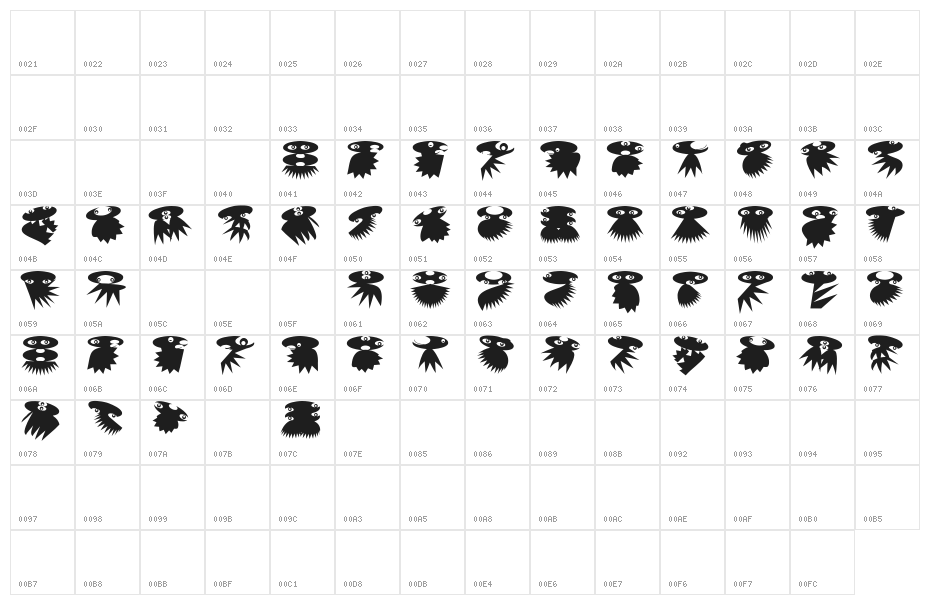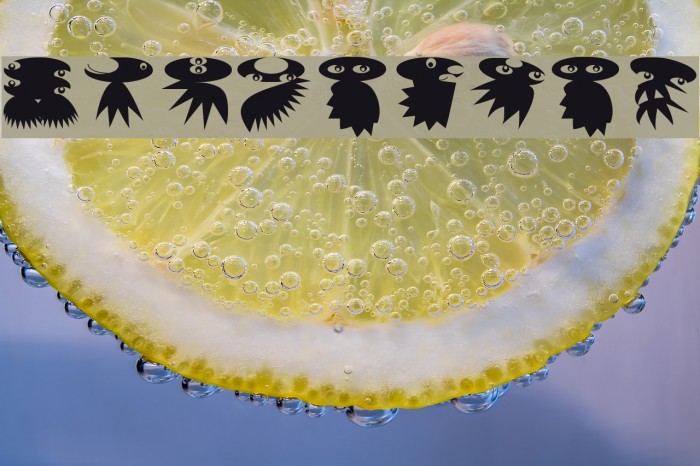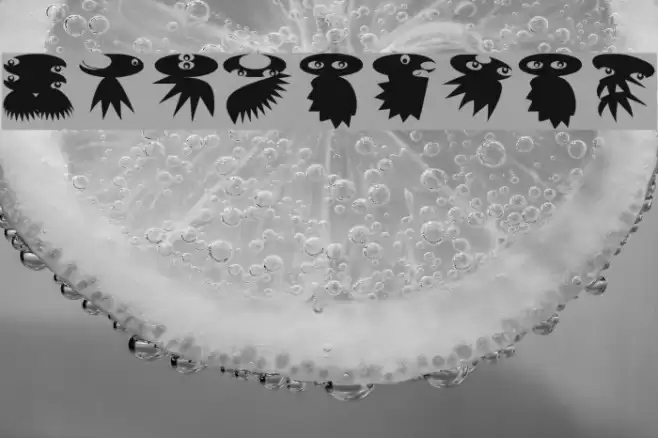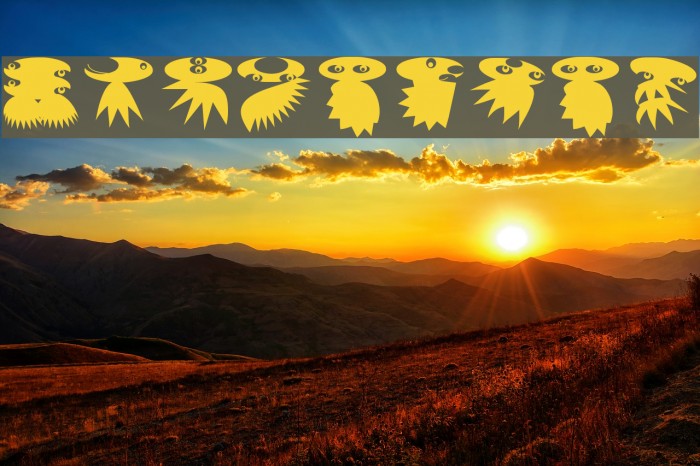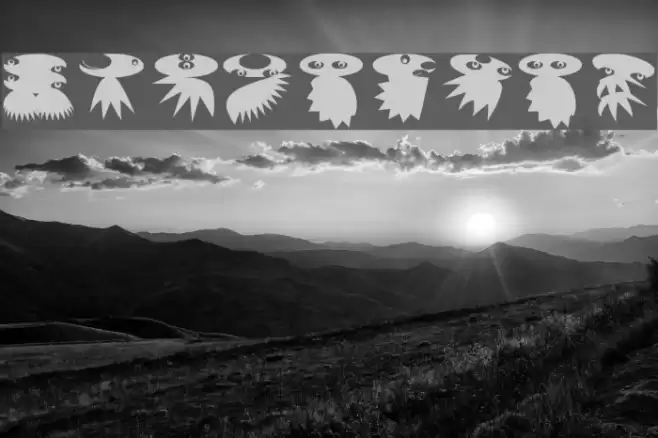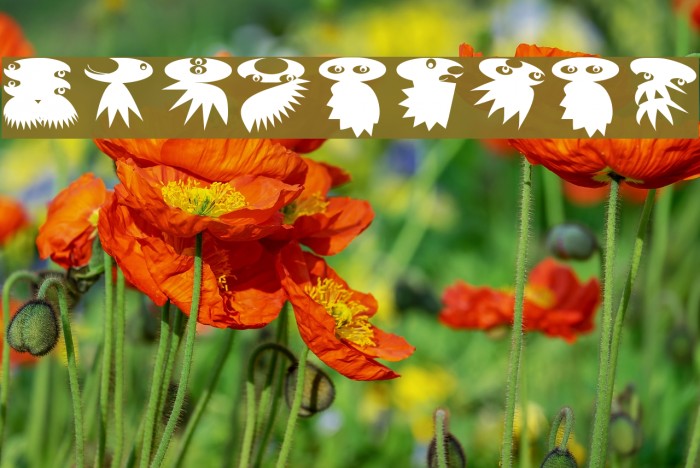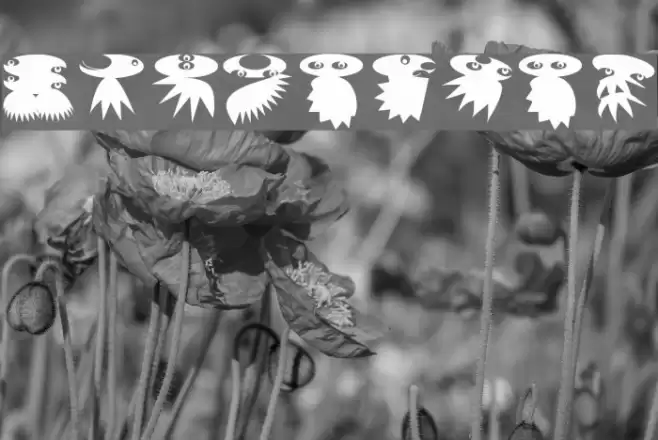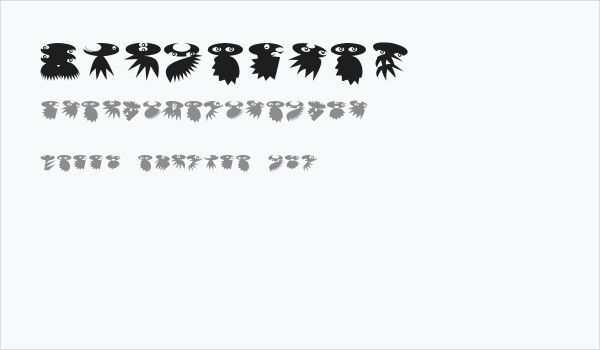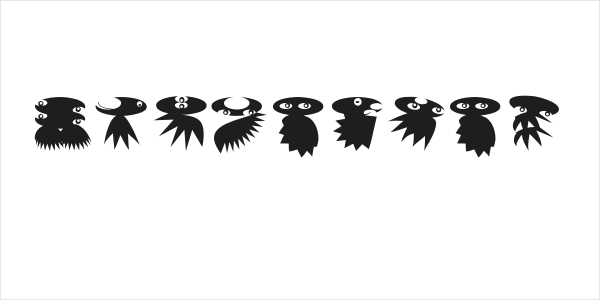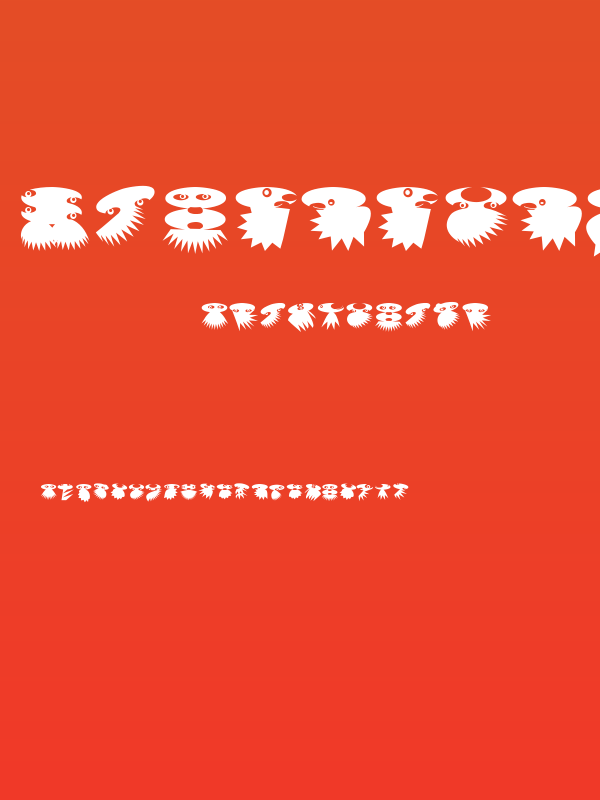
SpaceCrew Font
SpaceCrew Description
This is a decorative font featuring whimsical, alien-like characters with unique and playful shapes. Each character is designed with bold, solid black forms that resemble quirky extraterrestrial creatures. The font is highly stylized, with each letter and symbol taking on a distinct personality, characterized by exaggerated features such as eyes, tentacles, and spikes. This font is not meant for traditional text but rather for creative projects where a fun and imaginative style is desired. The characters are evenly spaced, maintaining a consistent visual rhythm across the set.
| Proposed Projects | Ideal for children's books, sci-fi themed posters, party invitations, and creative branding projects. |